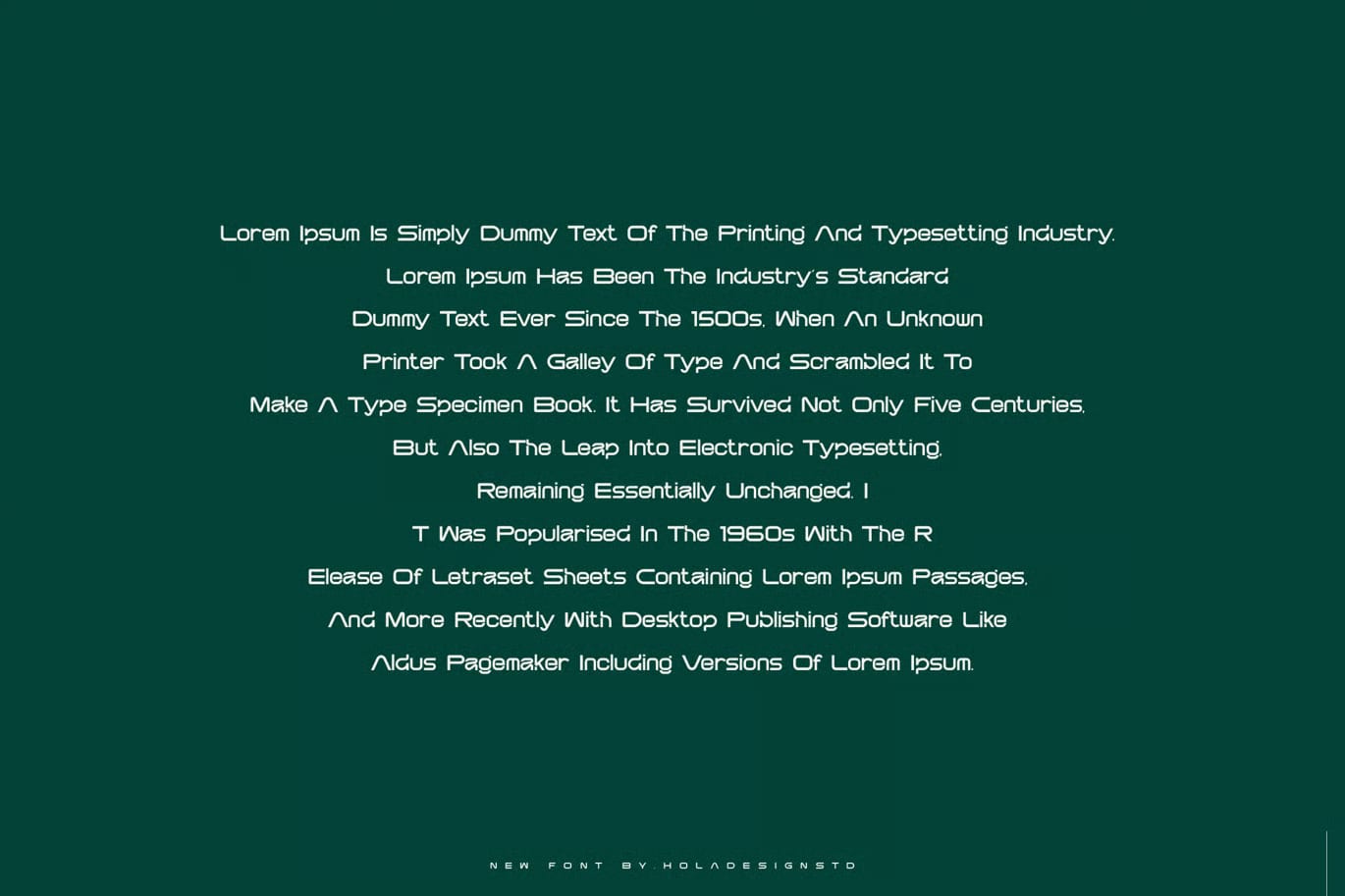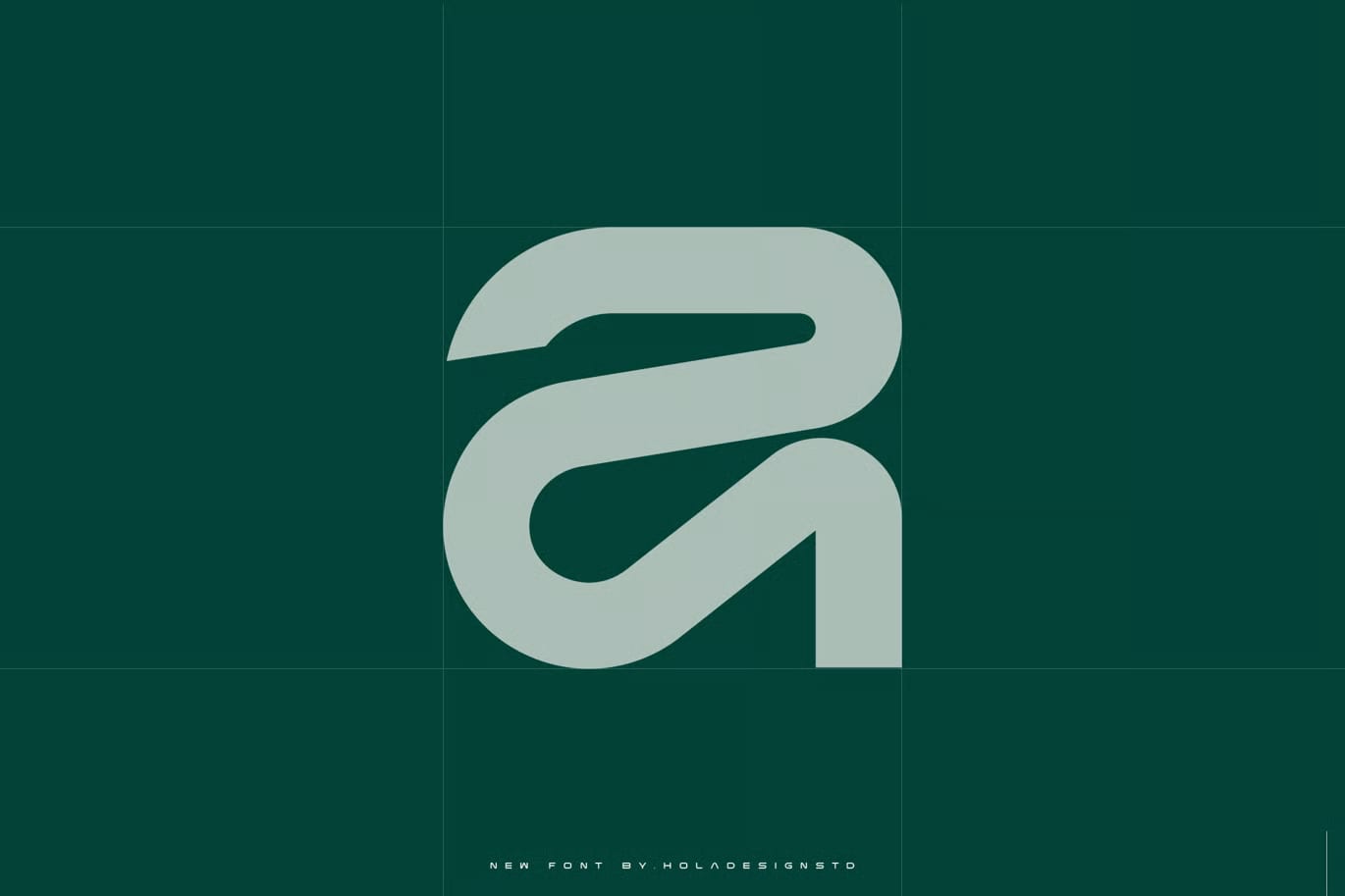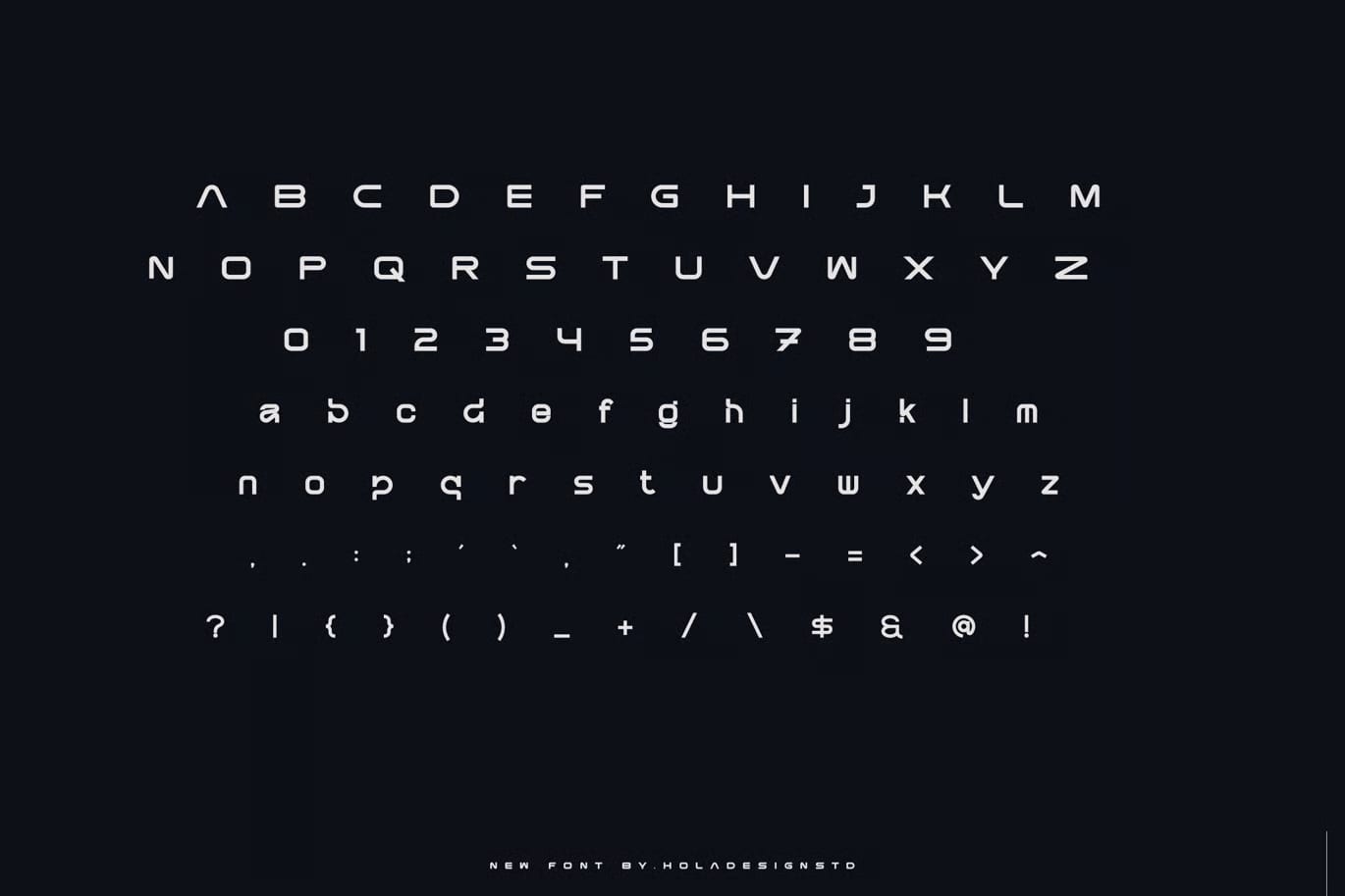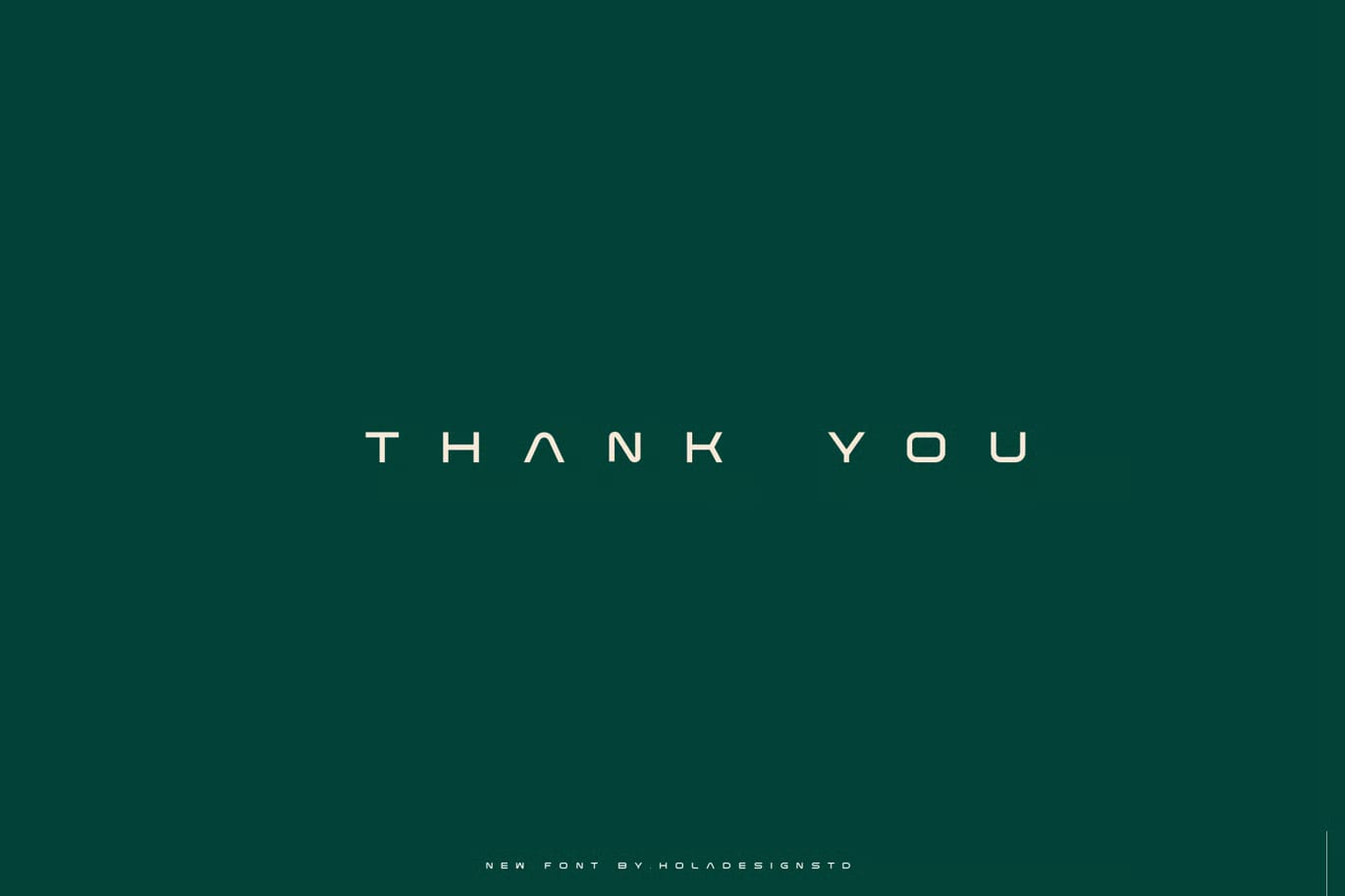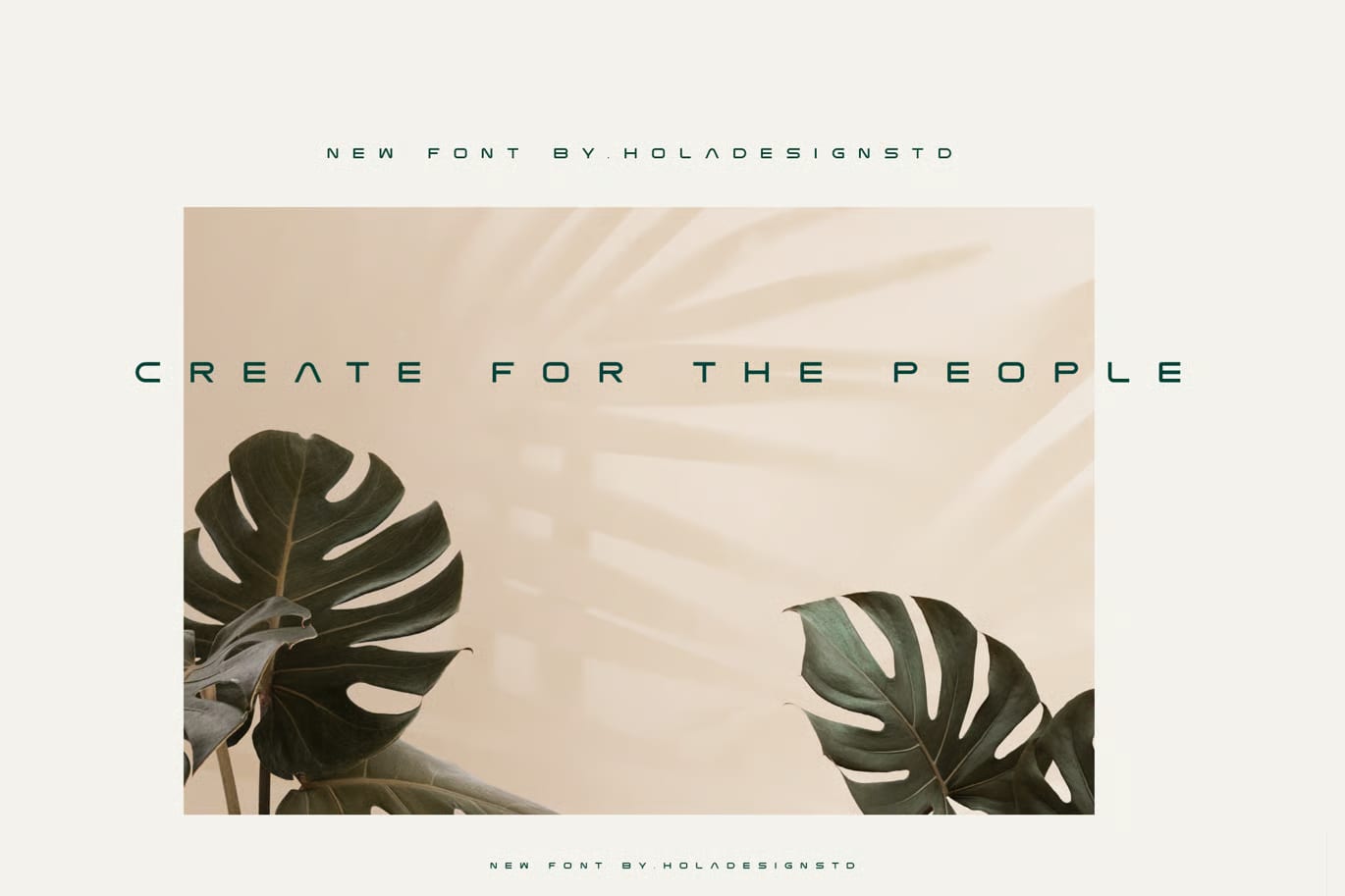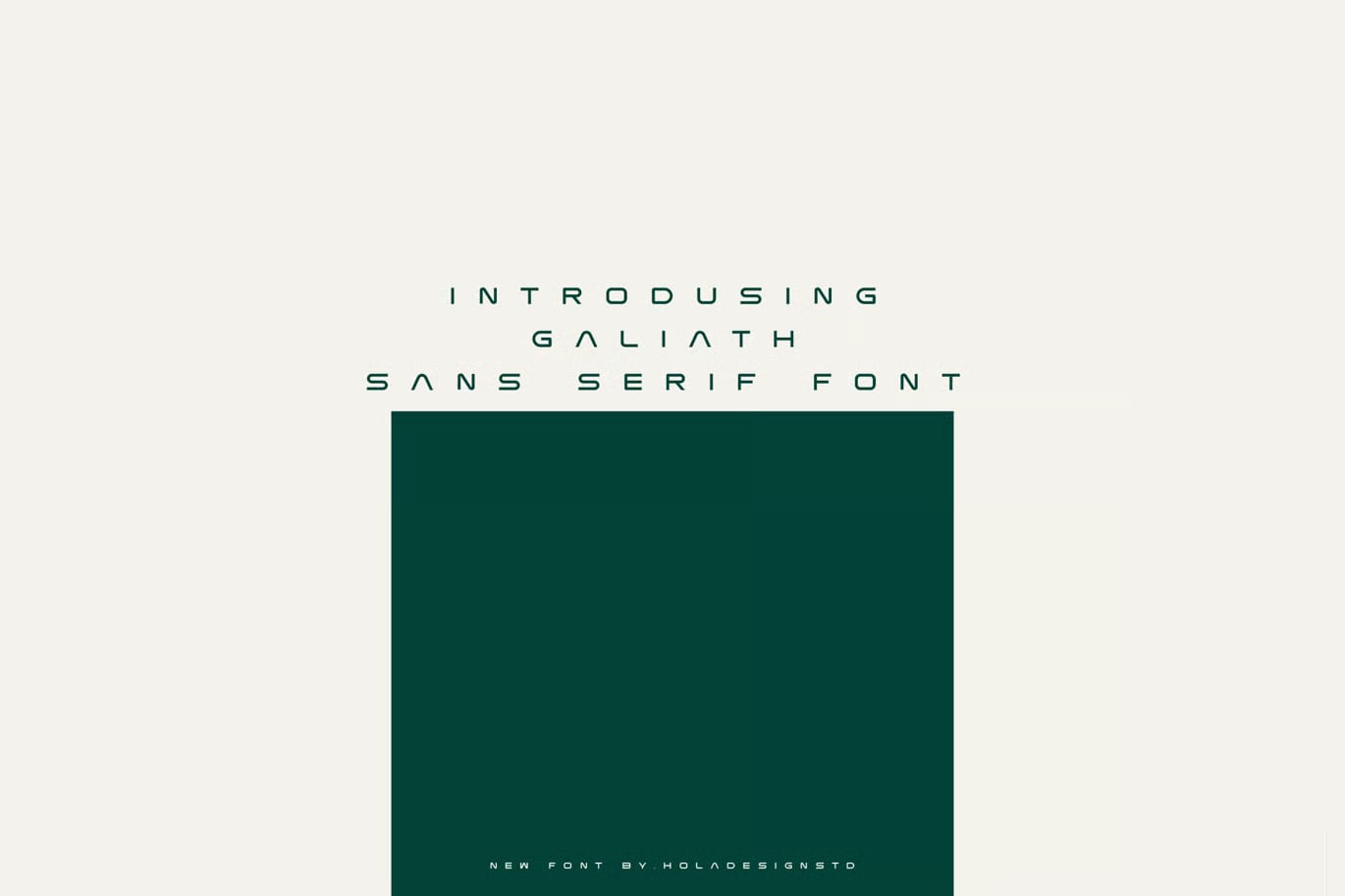
Galiath is a font that works well when you want a bold, modern look in your design. It can be used for labeling, movie scenes, posters, movie titles, gig artwork, album covers, logos, and other creative projects that need a strong type style.
The overall feel is clean and contemporary, with a style that fits well in tech-inspired or futuristic designs. It’s the kind of typeface you can use when the text itself needs to stand out and become part of the visual identity rather than just sitting quietly on the page.
This makes it a useful choice for designers working on branding, event graphics, or digital artwork. Whether you’re building a logo, a promo layout, or a title treatment, it gives you a simple way to add a modern edge to your work.